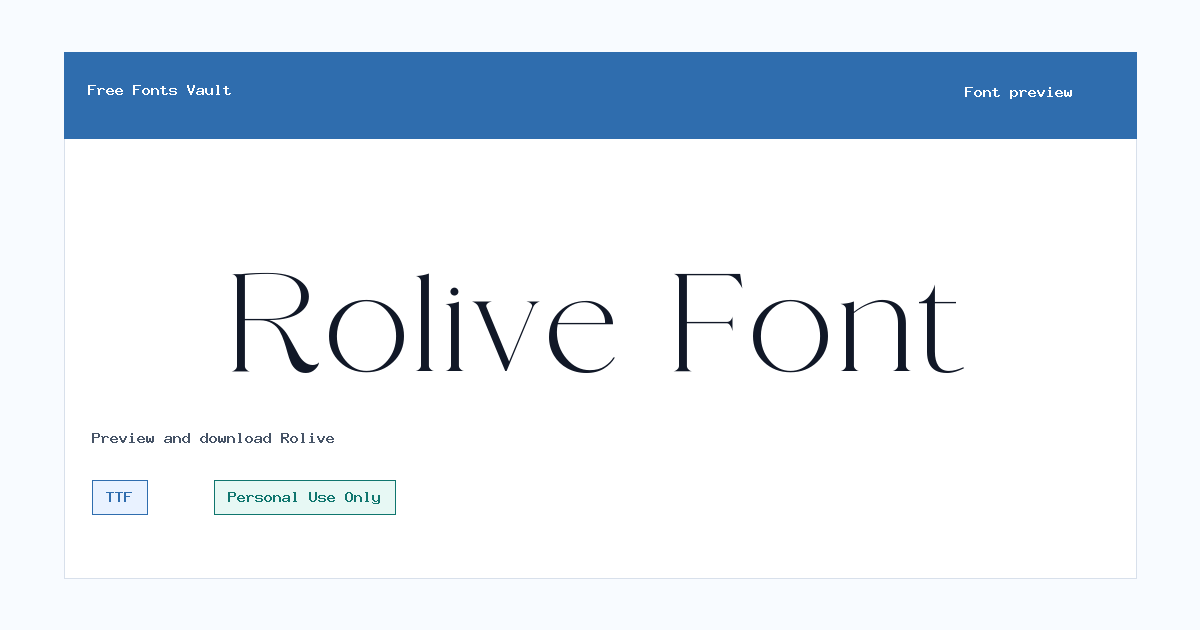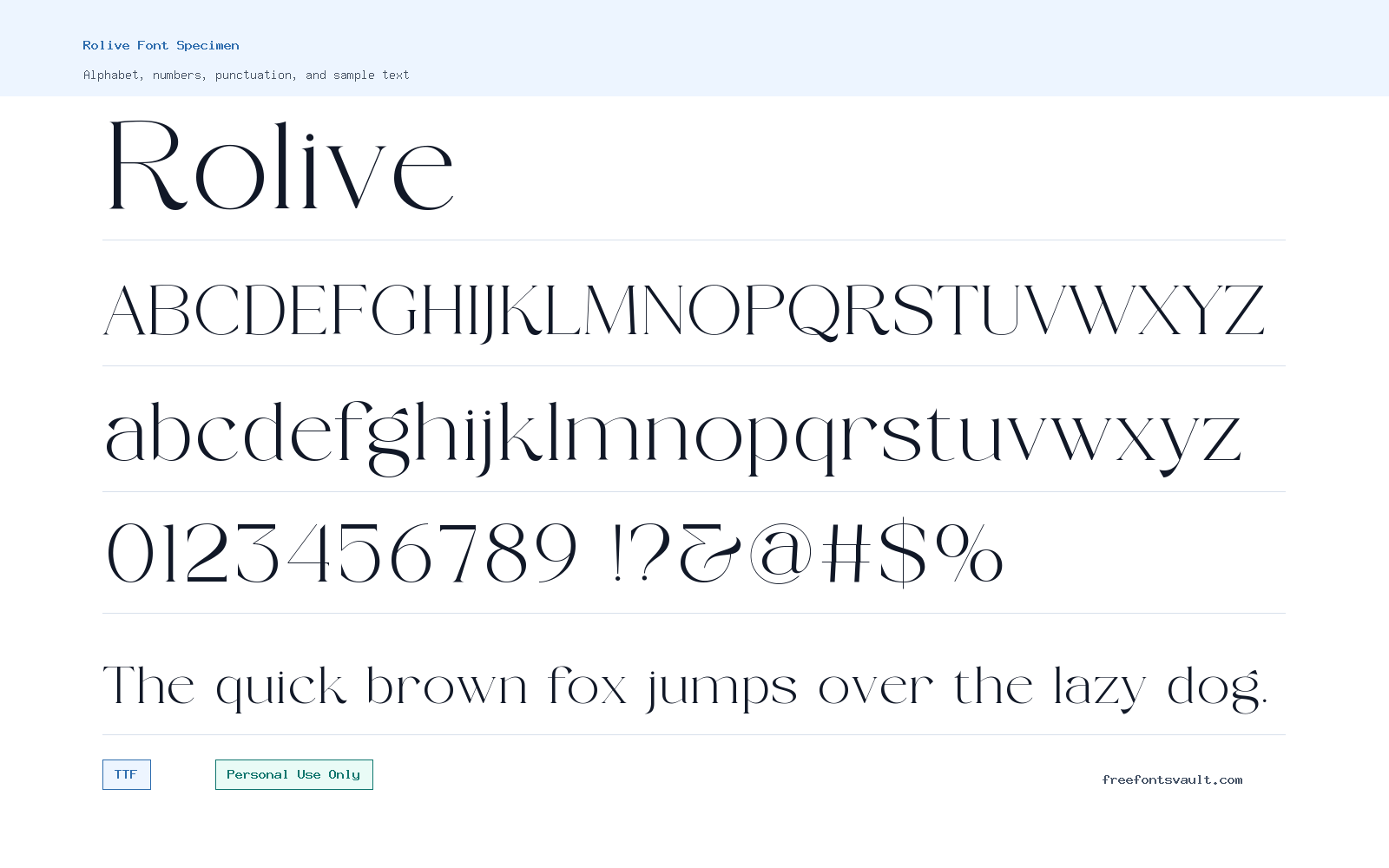
Rolive
Rolive font.
Rolive is a serif font with a clean regular style, suited to visitors who want a simple display typeface for personal projects, previews, mockups, and short text layouts.
About Rolive Font
Rolive works best when you give it room to show its serif shape. Use the preview tool to test words with mixed uppercase and lowercase letters, because serif fonts can feel very different depending on letter spacing, size, and the length of the text. It is a practical choice for titles, name treatments, invitations, social graphics, blog headers, printable cards, and design drafts where you want a more polished look than a plain sans serif. Since only a regular 400 style is listed, it is better to treat Rolive as a focused display option rather than a full text family with multiple weights.
For readability, try Rolive first in headings, short labels, pull quotes, and decorative lines. Long paragraphs may need extra testing, especially on small screens, because a single regular serif style does not give you the same control as a family with bold, italic, and text-specific cuts. If you use it in a layout, pair it with a quiet sans serif for body copy, navigation, captions, or supporting text. A neutral pairing helps Rolive stay noticeable without making the whole design feel busy. Before downloading, type your exact project wording in the preview area and check punctuation, numbers, spacing, and any special characters you need.
- Regular 400 style for clean title, logo-style, and short-text use
- Personal design mockups, invitations, cards, and social media graphics
- Headings, short quotes, branding drafts, and decorative text treatments
What is Rolive best used for?
Rolive is best suited to short text such as headings, invitations, quotes, social graphics, cards, and personal design mockups.
Can I use Rolive for long paragraphs?
You can test it, but it is safer for short text. For longer reading sections, pair it with a simple body font and use Rolive for titles or accents.
Does Rolive include bold or italic styles?
Only a regular 400 style is listed, so bold and italic versions should not be assumed unless you obtain them separately.